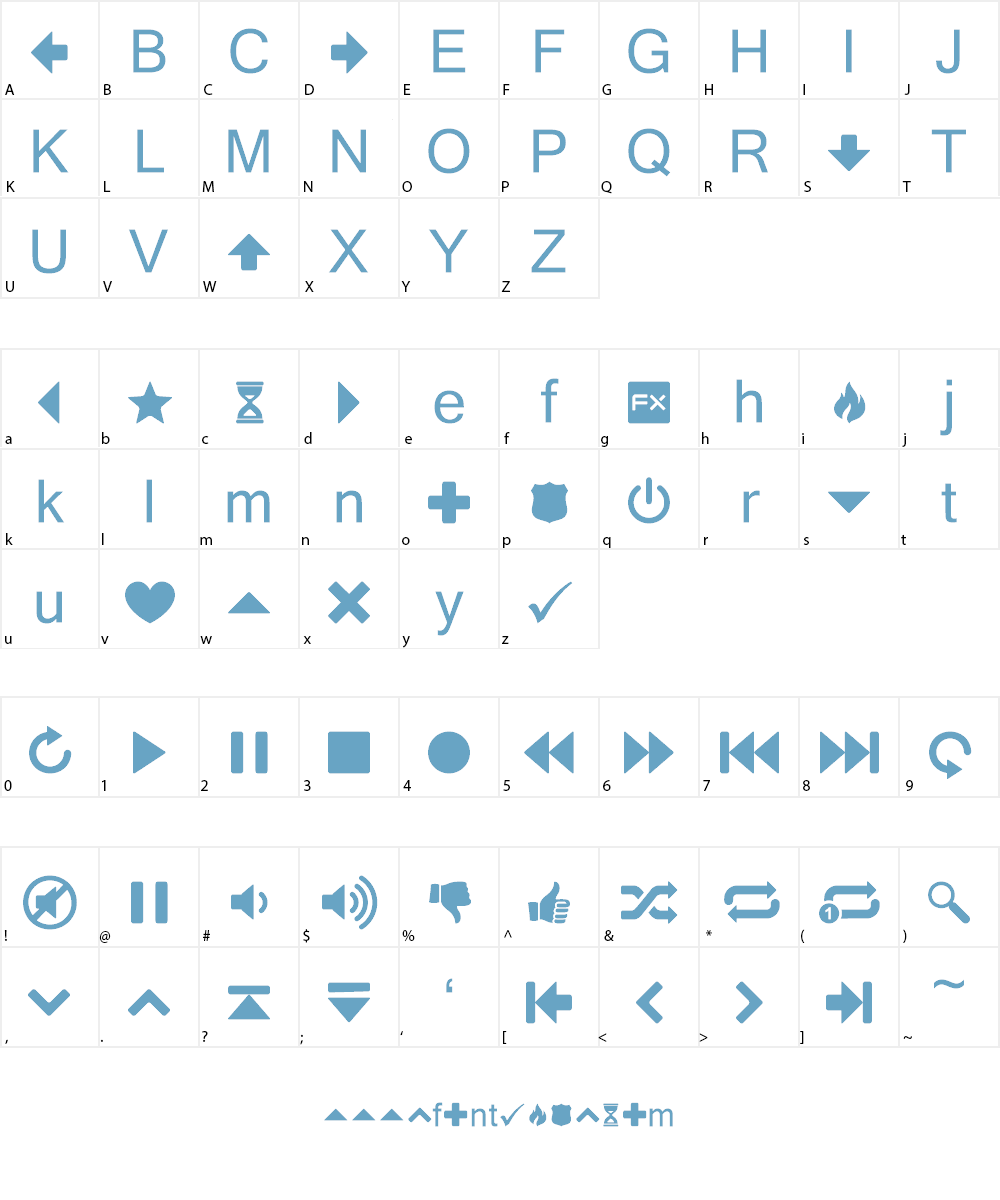
One TrueType font (TTF) containing 58 commonly used transport symbols, often found in audio and video interfaces. A keyboard map of all symbols is included.